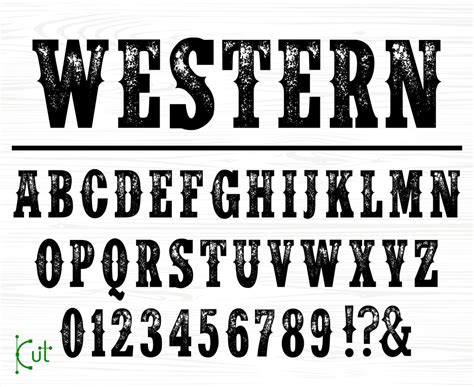
36 Wild West Fonts To Bring Out Your Inner Pioneer HipFonts
Wild West Font Google Docs. It's perfect for headlines and display uses that require. Web rye is a medium contrast design inspired by posters using wood type.
It is suitable for use. Web rye is a medium contrast design inspired by posters using wood type. It gives off a feeling of the american west. It's perfect for headlines and display uses that require.
It's perfect for headlines and display uses that require. It gives off a feeling of the american west. Web rye is a medium contrast design inspired by posters using wood type. It is suitable for use. It's perfect for headlines and display uses that require.